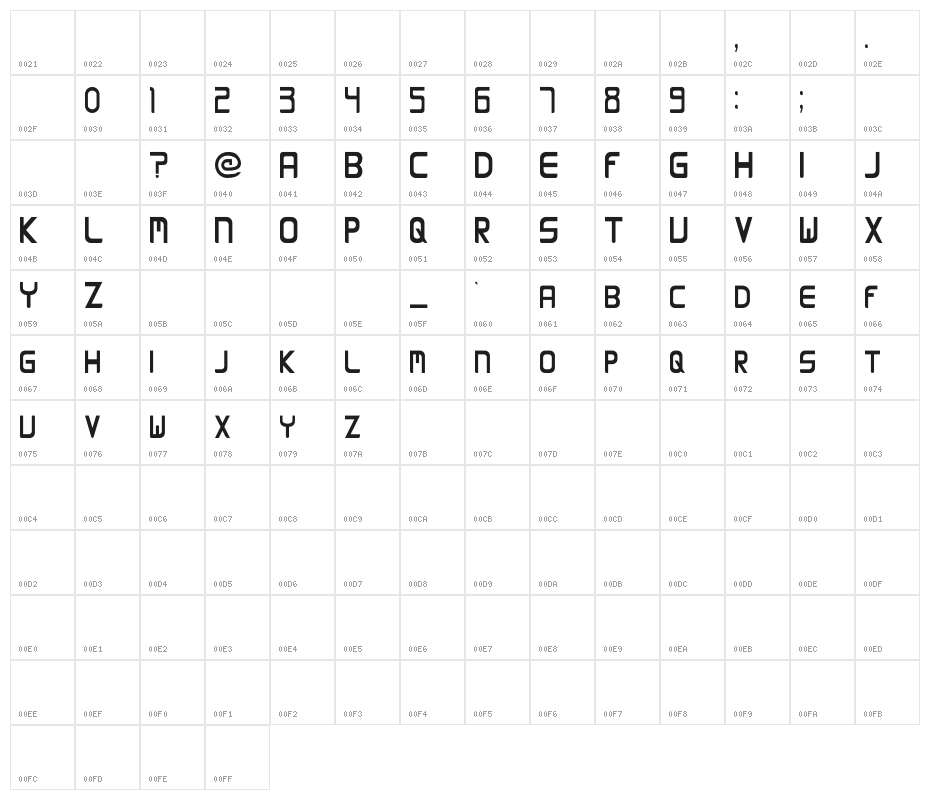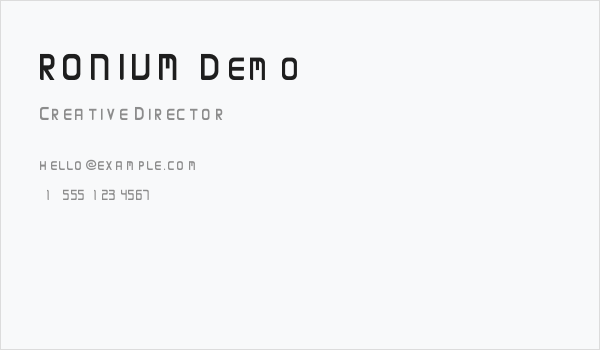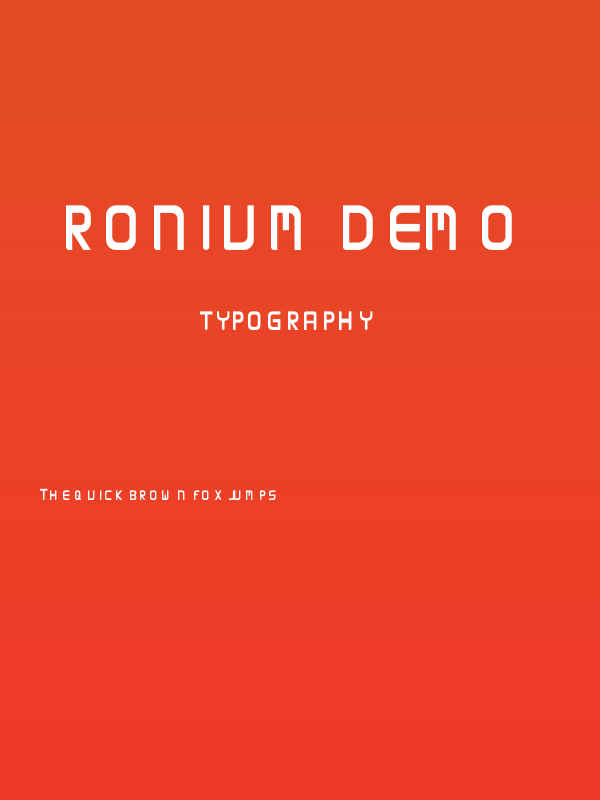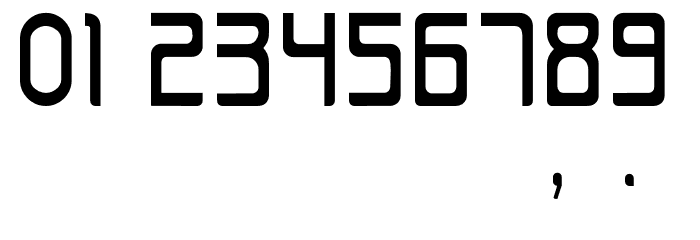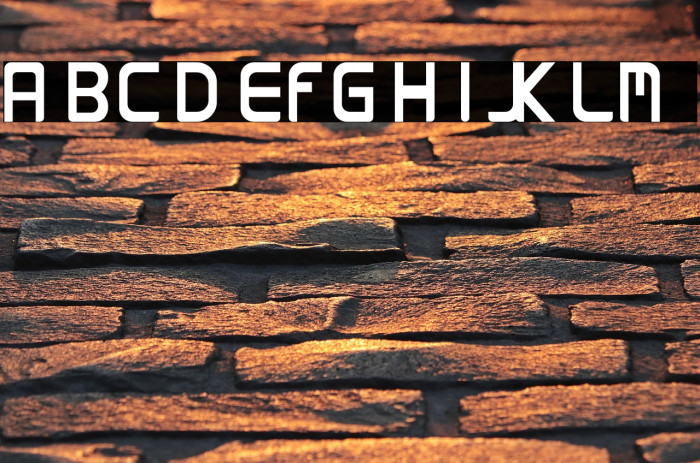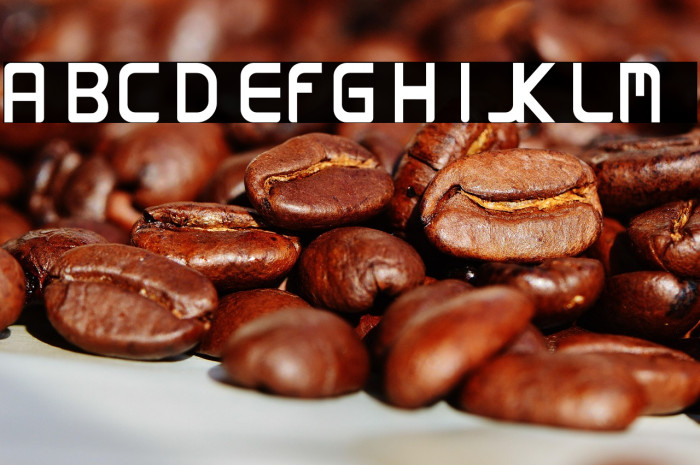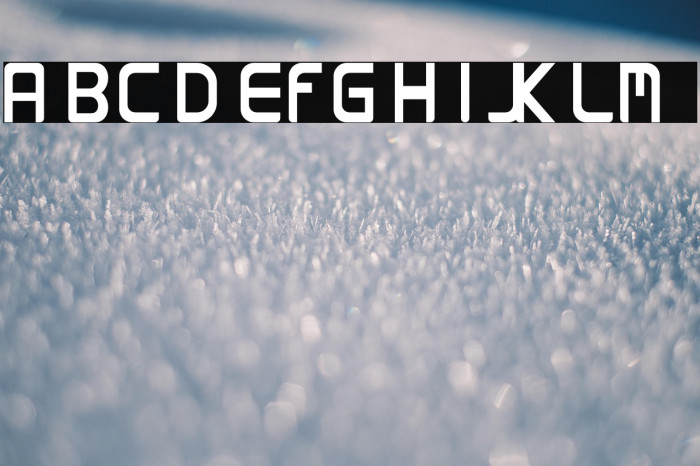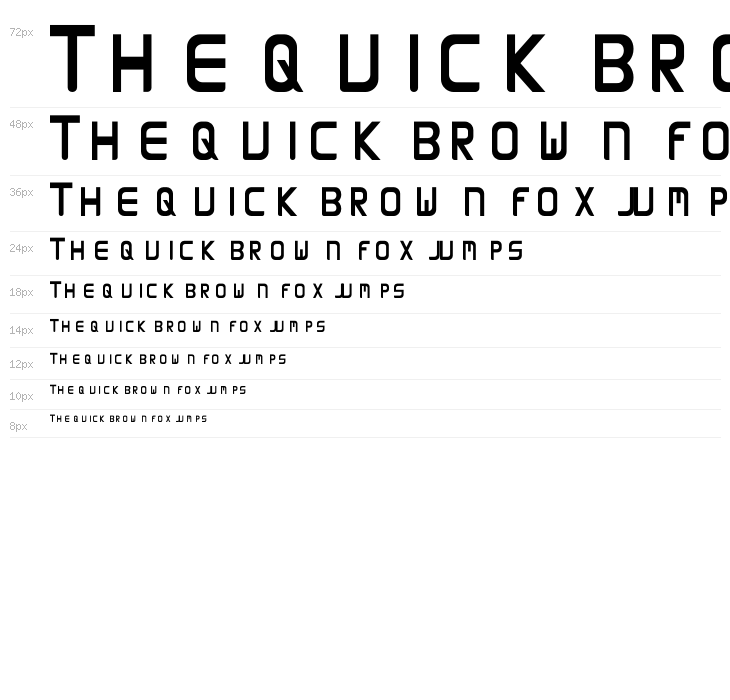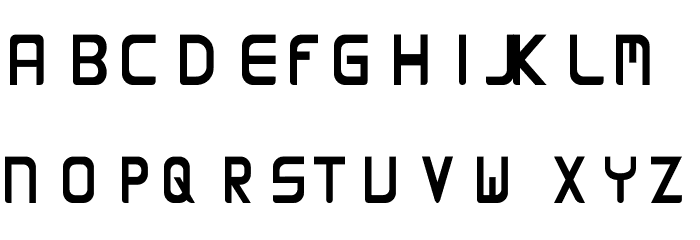
RONIUM Demo Font
RONIUM Demo Description
This font features a modern, geometric design with a futuristic appeal. The characters are constructed with clean, straight lines and rounded corners, giving it a sleek and contemporary look. The uppercase letters are bold and uniform, while the lowercase letters maintain the same geometric style, ensuring consistency across the typeface. The numerals are equally bold and clear, making them highly legible. This font's unique style is further emphasized by its minimalistic approach, with no unnecessary embellishments, allowing the simplicity of the design to stand out.
| Use Case | Headlines, Logos, Digital Interfaces |
| Proposed Projects | Ideal for tech branding, modern advertising, digital interfaces, and futuristic-themed projects. |